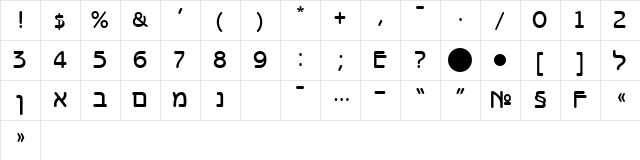
BenzionTT Regular Font Preview
BenzionTT Regular
Design Context for BenzionTT Typeface
BenzionTT is a composed and adaptable typeface that performs quietly and consistently across a wide range of design contexts.